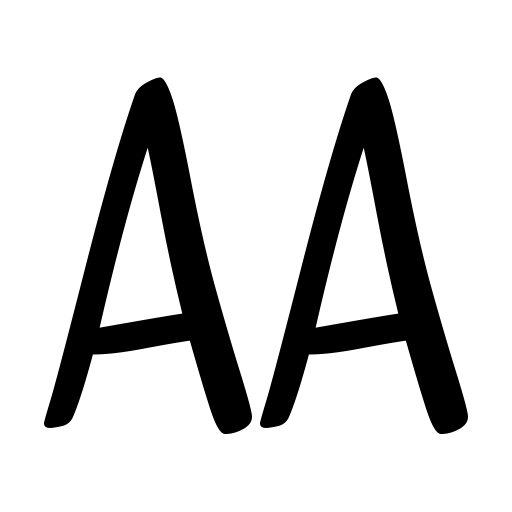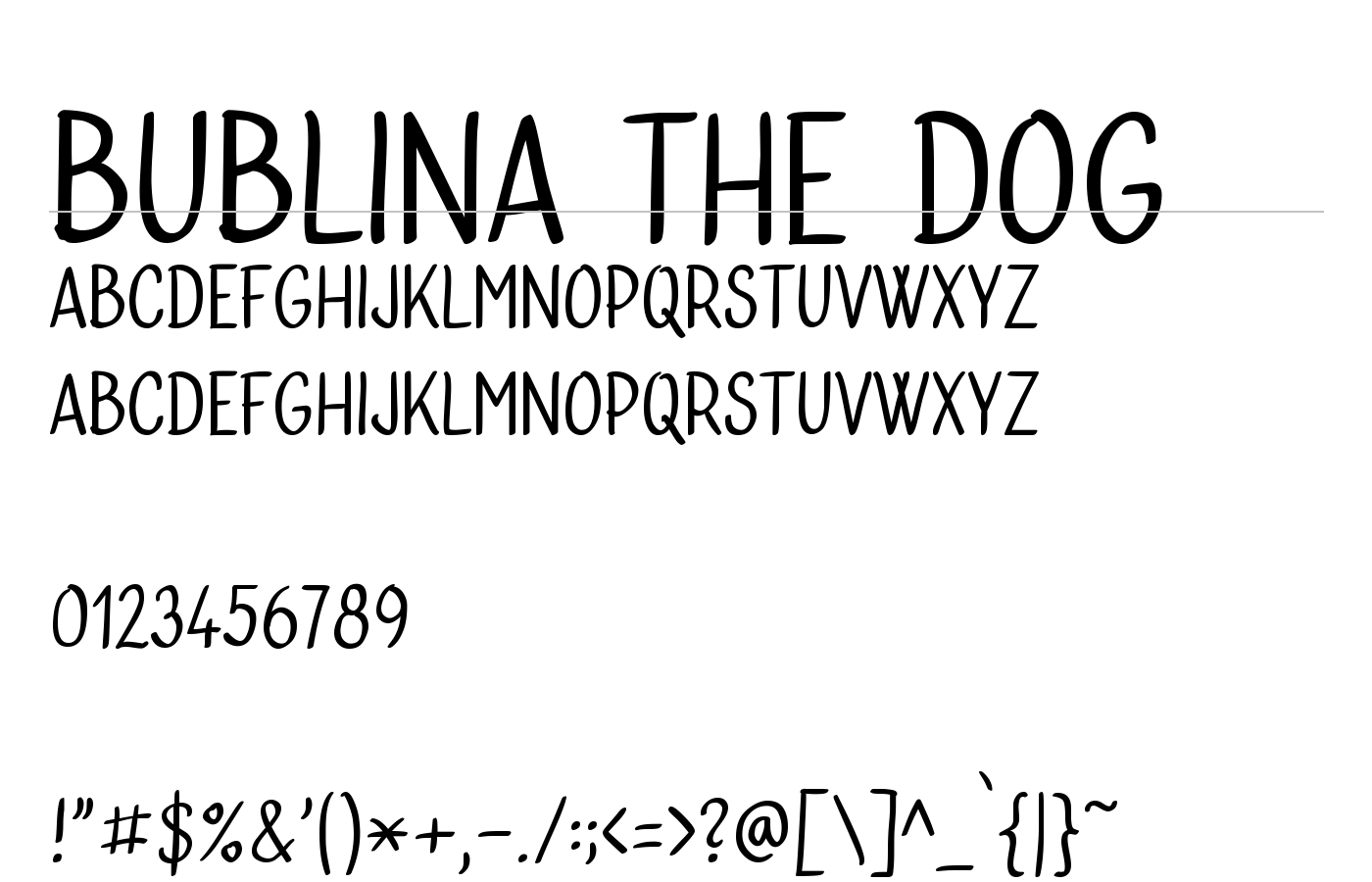
Bublina the Dog is a playful and quirky sans serif font with a hand-drawn feel, characterized by tall, narrow letterforms and a light weight. Its irregular, slightly wobbly lines give it a casual and friendly personality, making it ideal for fun, informal designs such as children's books, casual branding, or creative projects needing a personal touch. This font shines in headlines or display use where a whimsical and approachable vibe is desired.
Bublina the Dog Font
About Bublina the Dog Font